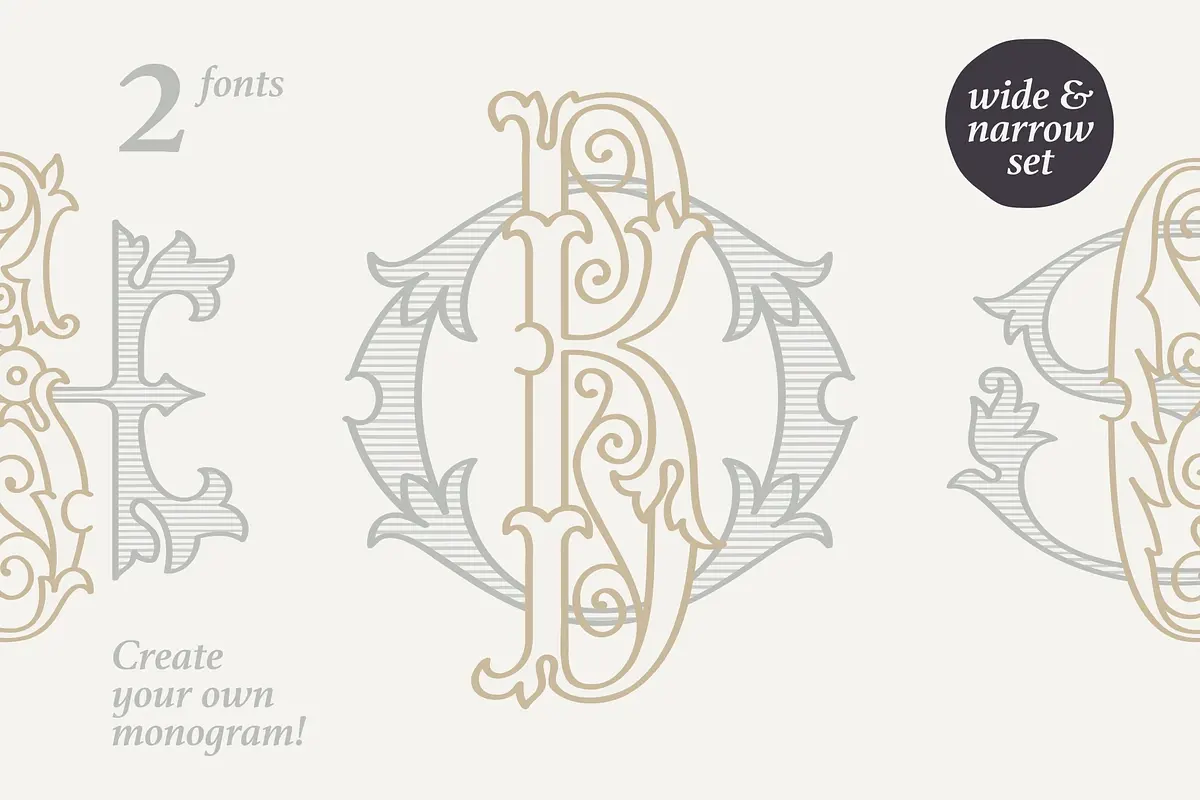
Please note that you must purchase this font set for commercial use. You can download Wedding Monograms Font Set for free, strictly for personal testing purposes only. The Wedding Monograms Font Set is a beautifully crafted collection of elegant fonts designed specifically for creating sophisticated and personalized monograms for weddings. With a range of stylish, decorative letterforms, Wedding Monograms Font Set Free Download is perfect for creating custom wedding invitations, logos, stationery, and other event-related designs.
The set includes a variety of fonts that can be paired together to create beautiful, unique monograms, combining graceful script and classy serif styles. It includes uppercase letters, numerals, punctuation, and multilingual support, ensuring versatility for all wedding-related design projects.
Whether you're designing a custom wedding logo, creating personalized invitations, or adding a special touch to your wedding decor, Wedding Monograms Font Set provides the perfect typographic foundation.